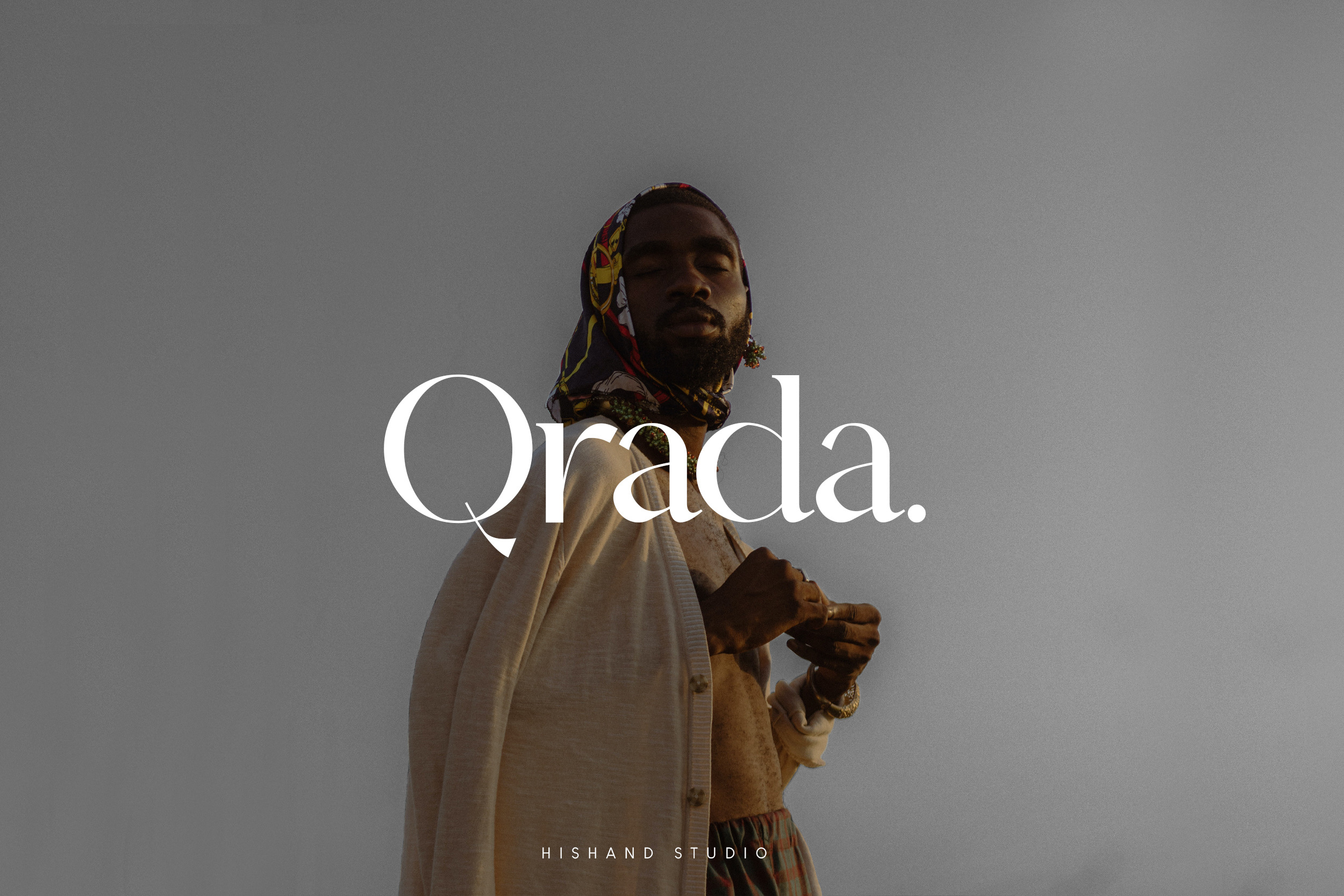
Introducing Qrada classy modern serif font family that drawn inspiration from elegant, modern, and classic at the same time. It looks lovely on wedding invitations, thank you cards, quotes, greeting cards, logos, business cards and every other design which needs a customized touch.